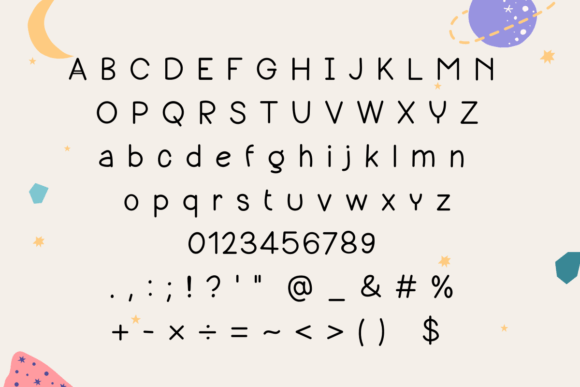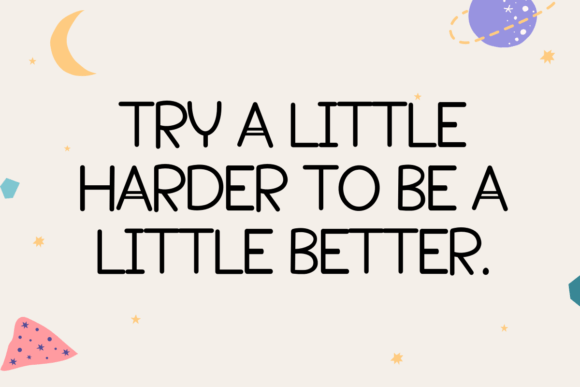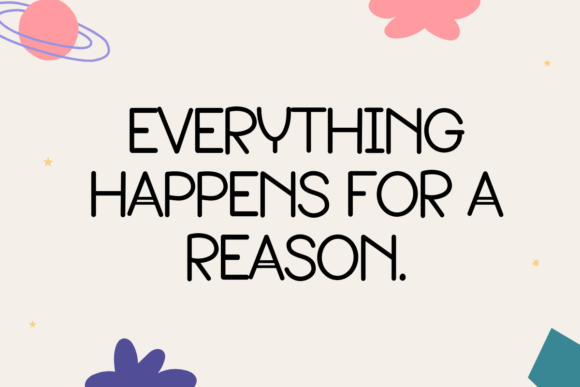
Introducing Chalk Font: The Cute and Fun Handwritten Font for Creative Projects
Are you looking for a font that adds a touch of playfulness and whimsy to your designs? Look no further than Chalk Font! This adorable handwritten font is perfect for a variety of creative projects, from taking notes and writing diaries to making greeting cards and more. In this article, we’ll explore the versatility of Chalk Font and how you can use it to elevate your designs.
What is Chalk Font?
Chalk Font is a delightful handwritten font that mimics the look of chalk writing. Its soft, rounded edges and casual feel make it perfect for designs that require a personal touch. Whether you’re a designer, crafter, or simply a DIY enthusiast, Chalk Font is a great addition to your font collection.
Uses for Chalk Font
Chalk Font is incredibly versatile, and its uses are endless! Here are some ideas to get you started:
- Note-taking and journaling: Add a touch of personality to your notes and diary entries with Chalk Font. It’s perfect for headings, titles, and even doodles.
- Greeting cards and invitations: Create one-of-a-kind greeting cards, invitations, and party decor with Chalk Font. Its playful feel is sure to delight your friends and family.
- Banners and signs: Use Chalk Font to create eye-catching banners and signs for parties, events, or even your business. Its bold and playful feel is sure to grab attention.
- Social media posts: Add a touch of whimsy to your social media posts with Chalk Font. Use it to create engaging graphics, quotes, and more.
- Mugs, cards, and shirts: Take your designs to the next level with Chalk Font. Use it to create custom mugs, cards, shirts, and other merchandise that’s sure to stand out.
- Stationery and craft projects: Incorporate Chalk Font into your stationery and craft projects, such as scrapbooking, paper crafting, and more.
Benefits of Using Chalk Font
So, why choose Chalk Font for your designs? Here are just a few benefits:
- Unique and playful feel: Chalk Font adds a touch of personality to your designs, making them stand out from the crowd.
- Easy to read: Despite its playful feel, Chalk Font is easy to read, making it perfect for designs that require a clear message.
- Versatile: Chalk Font can be used for a wide range of designs, from casual to formal.
- Customizable: Experiment with different colors, sizes, and styles to make Chalk Font your own.
Tips for Using Chalk Font
Here are some tips to help you get the most out of Chalk Font:
- Use it sparingly: Chalk Font is perfect for headings, titles, and accents. Use it sparingly to add visual interest to your designs.
- Experiment with colors: Chalk Font looks great in a variety of colors, from bright and bold to soft and pastel.
- Pair it with other fonts: Combine Chalk Font with other fonts to create a unique and interesting design.
- Have fun: Most importantly, have fun with Chalk Font! Its playful feel is perfect for designs that require a touch of personality.
Chalk Font is a versatile and playful handwritten font that’s perfect for a wide range of creative projects. Whether you’re a designer, crafter, or simply a DIY enthusiast, Chalk Font is a great addition to your font collection. With its unique and playful feel, ease of use, and customizability, Chalk Font is sure to elevate your designs and add a touch of whimsy to your projects. So why not give it a try? Download Chalk Font today and start creating!